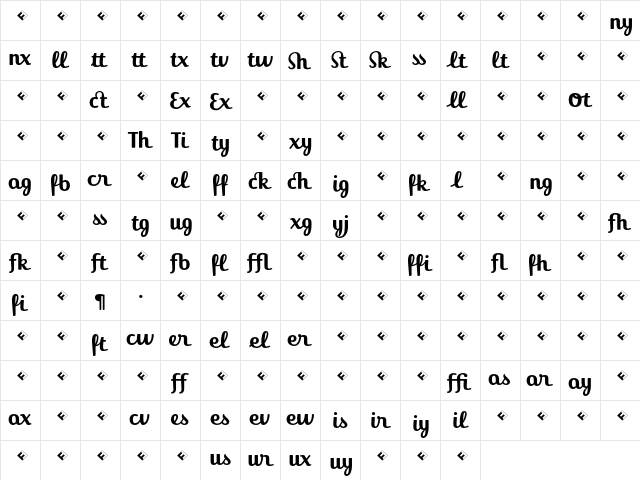
Jackie-Ligatures Bold
Design Context for Jackie-Ligatures Typeface
Jackie-Ligatures is a composed and adaptable typeface that performs quietly and consistently across a wide range of design contexts. The heavy weight commands attention and anchors typographic hierarchies.